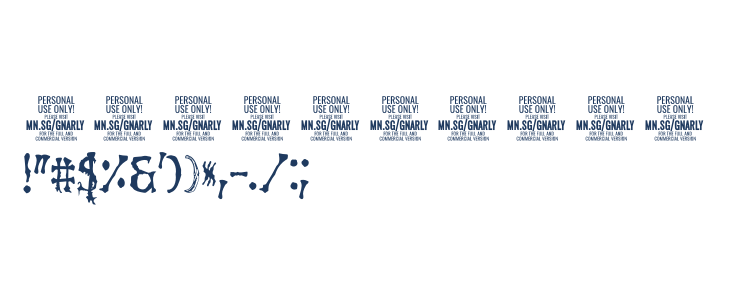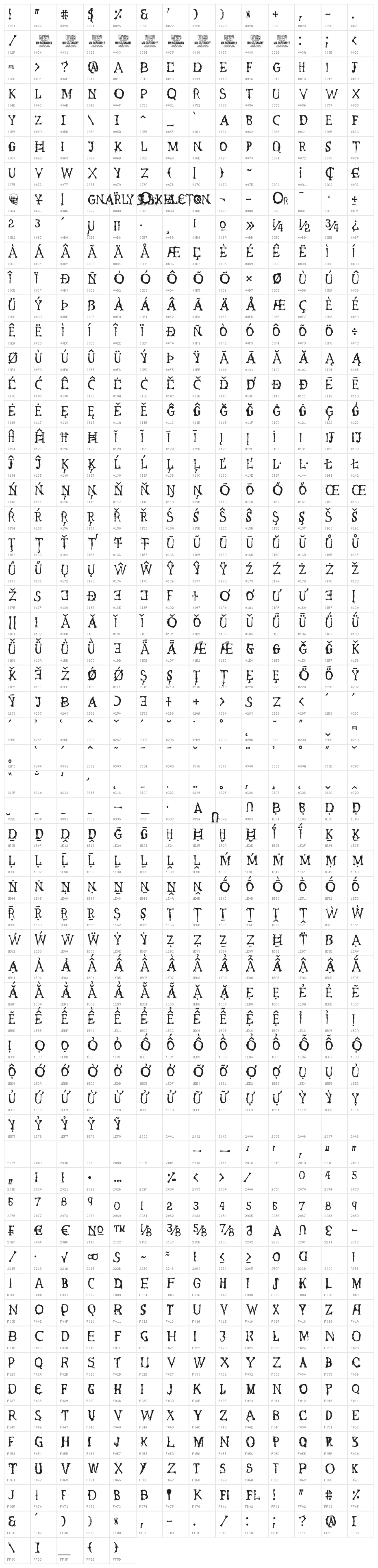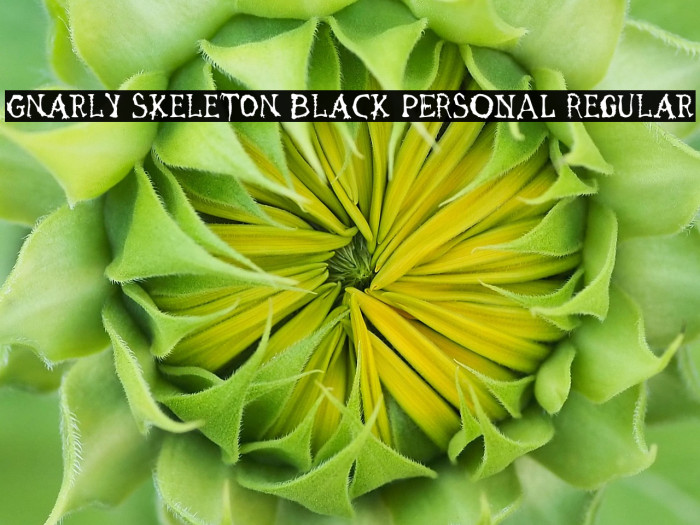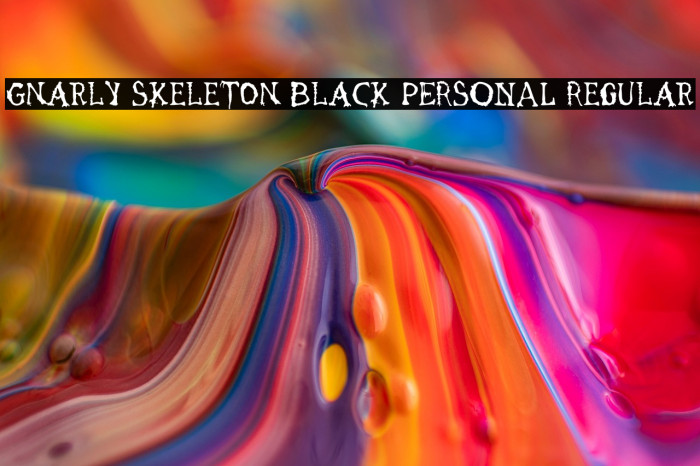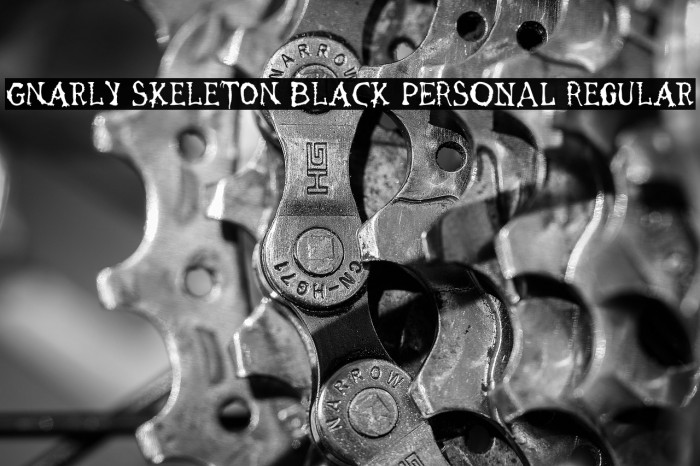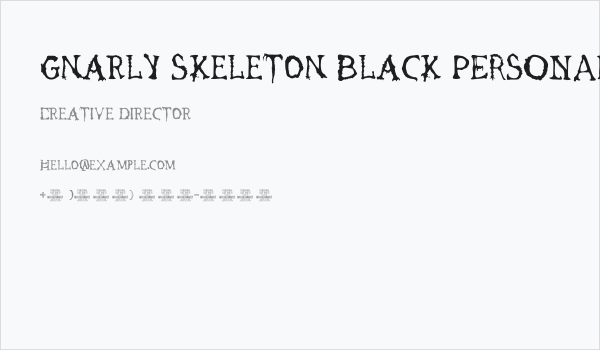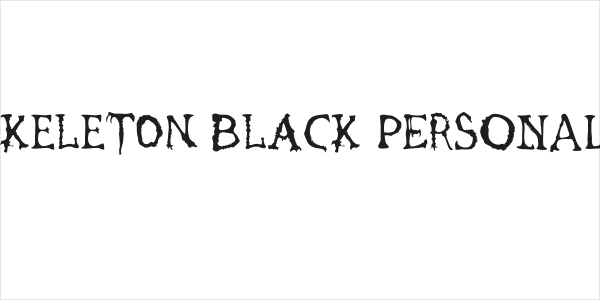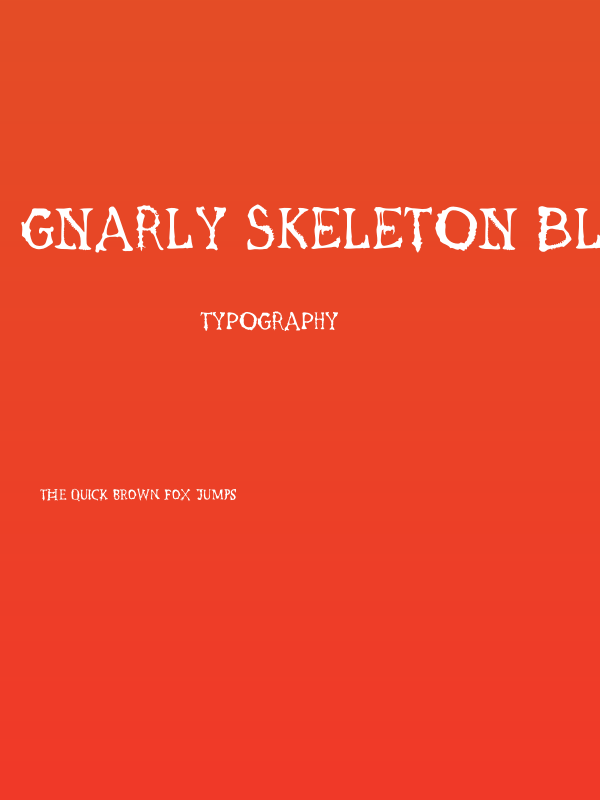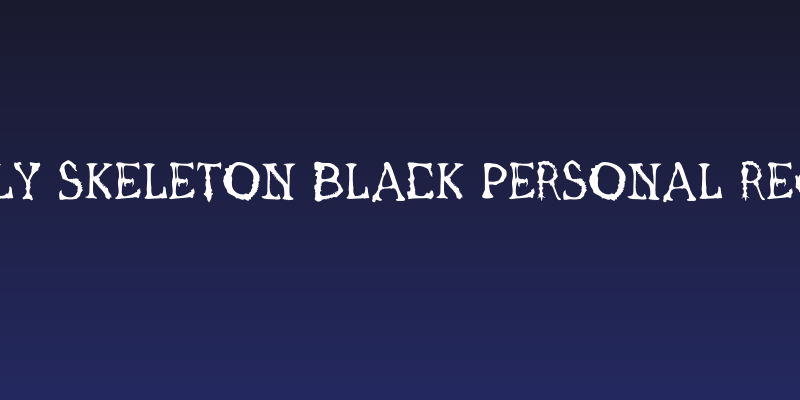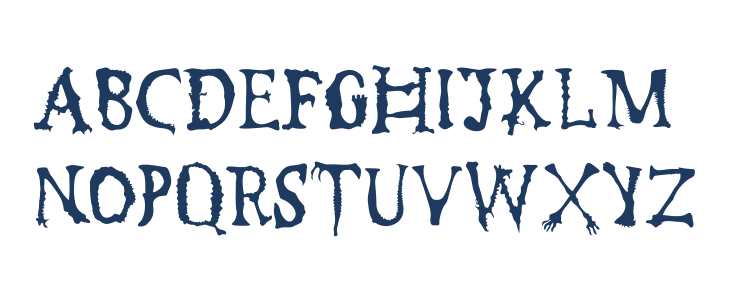
Gnarly Skeleton Black PERSONAL Regular Font
Gnarly Skeleton Black PERSONAL Regular Description
This font features a unique and edgy design, characterized by its jagged, irregular edges and a skeletal, bone-like appearance. The letters are crafted with a dripping effect, giving them a haunting and eerie vibe. This style is reminiscent of horror themes, making it perfect for Halloween or gothic-inspired projects. The uppercase and lowercase letters maintain a consistent style, with each character exhibiting a distinct, hand-drawn quality. The numbers and special characters follow the same aesthetic, ensuring a cohesive look across all text elements.
| Proposed Projects | Ideal for Halloween invitations, horror movie posters, themed party decorations, and gothic graphic designs. |